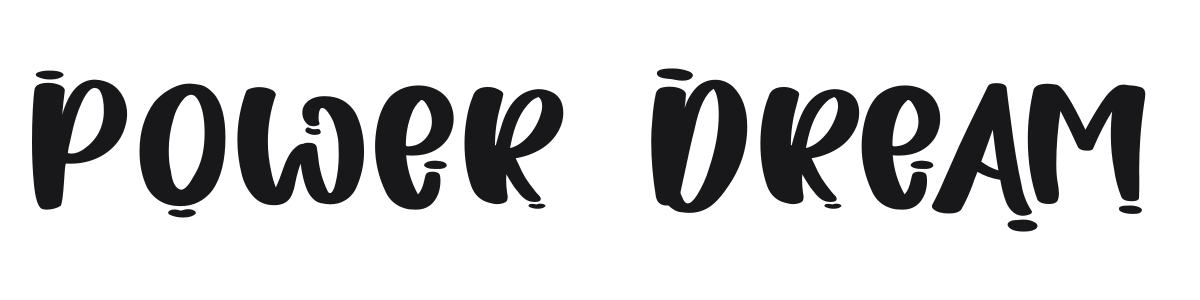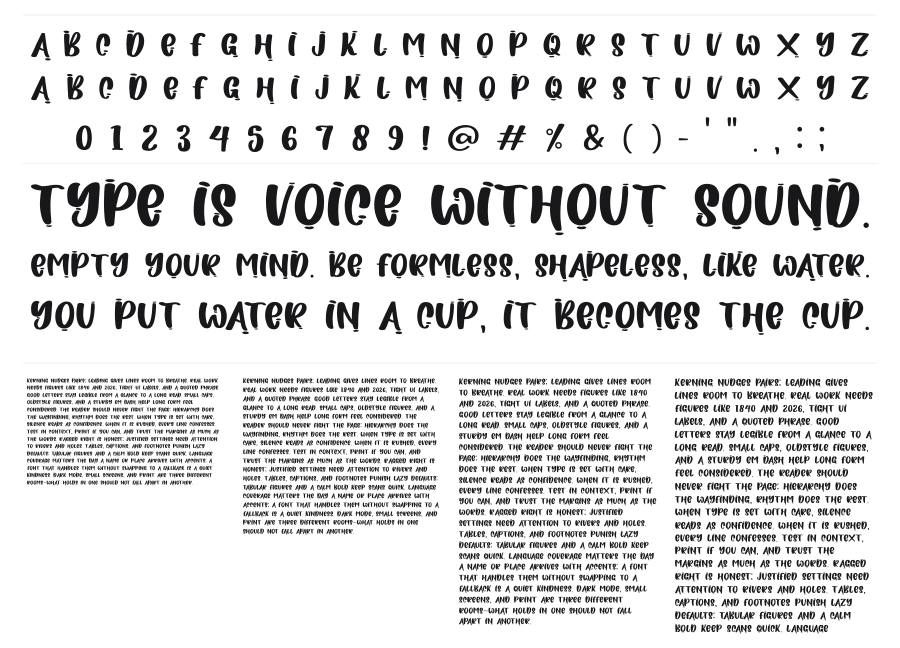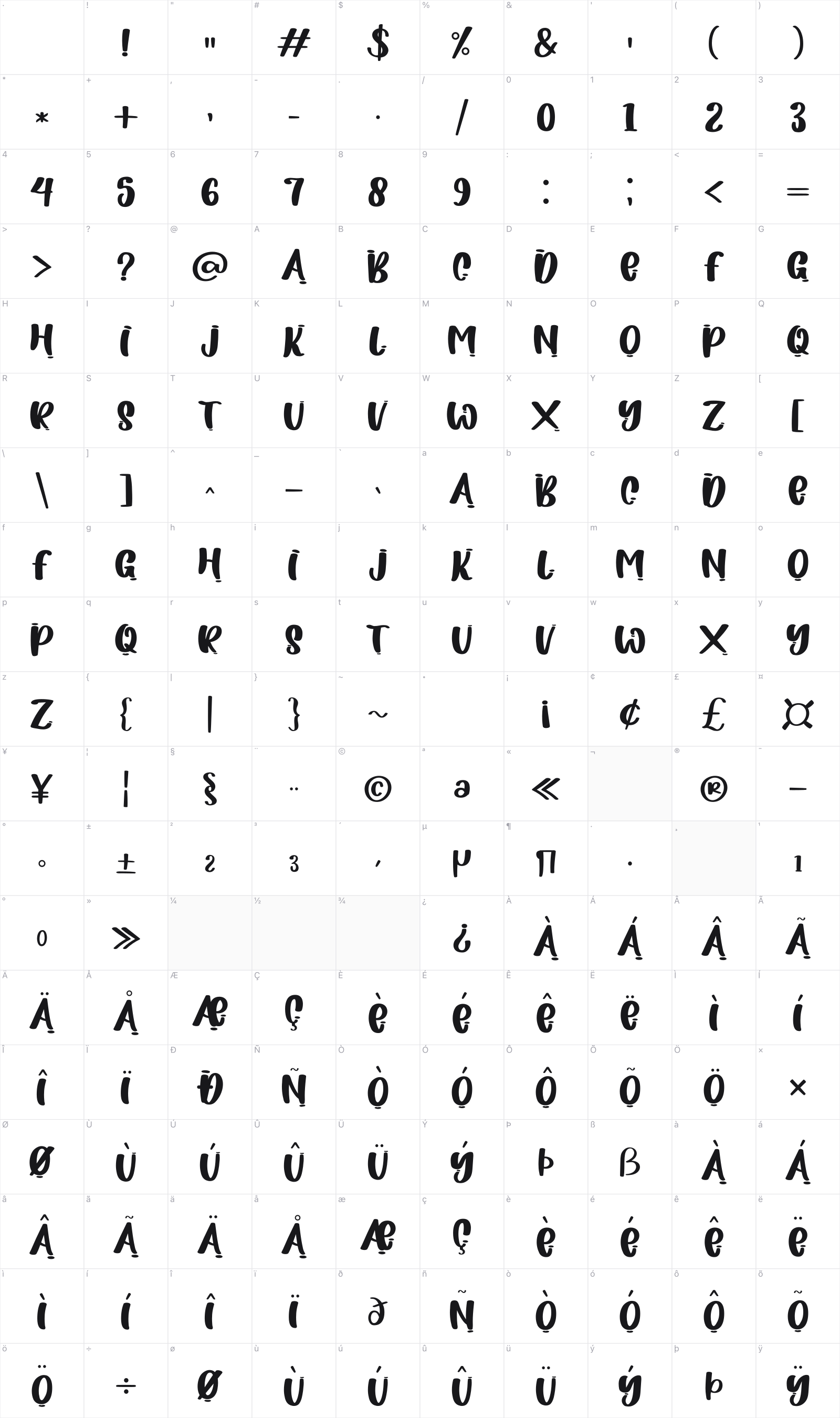
Power Dream
Power Dream is a bold, upright casual script with a chunky hand-lettered feel and strong stroke contrast. The letters bounce slightly on the baseline and carry thick brush-style stems that make it feel energetic without being chaotic. Great for packaging, event graphics, and anywhere a design needs a burst of friendly personality.